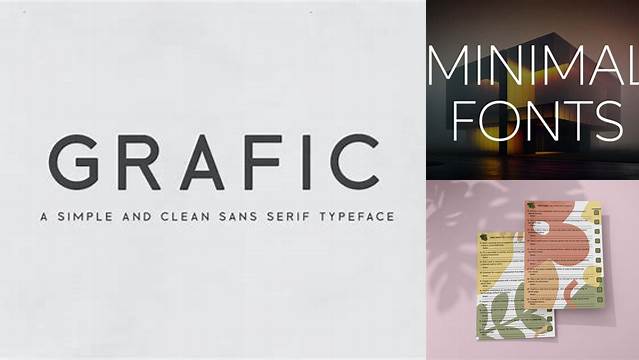
Top Clean And Simple Fonts For Modern Design
Are you on the hunt for the best clean simple fonts? Let's be honest, choosing the right font can feel like navigating a maze. It's more than just picking something that looks pretty; it's about conveying your message clearly, making your content readable, and giving your brand a unique voice. Think of fonts as the silent narrators of your design, silently shaping how your audience perceives your message. So, whether you're a seasoned designer or just starting out, understanding the world of clean, simple fonts is a must. In this article, we're diving deep into some of the top contenders, exploring why they work, and how you can use them to elevate your designs. We will uncover the essence of these best clean simple fonts and their importance in the modern design landscape. We'll cover some popular and well-regarded choices, but also some interesting and lesser-known options. Ultimately, you'll gain the knowledge you need to select the ideal fonts for your next project, so let's get started!
Why Clean and Simple Fonts Matter
Alright, guys, let's talk about why clean and simple fonts are so darn important. In a world overflowing with visual information, clarity is king. Clean fonts, also known as sans-serif fonts, are those that don't have the little decorative strokes (serifs) at the end of their characters. This simplicity is what makes them incredibly versatile and easy to read, especially on screens. Think about it: You're scrolling through your phone, and you want to quickly grasp the information. A cluttered font will make your eyes glaze over, but a clean one? It's like a breath of fresh air. They're particularly well-suited for body text in websites and apps, because they are designed for maximum readability. However, they are also a smart choice for a wide array of applications, including logos, headings, and even print materials. Beyond readability, these fonts have an inherent sense of modern elegance. They can communicate a sense of trustworthiness, minimalism, and sophistication. It's all about making your content accessible and professional-looking. Clean fonts are often a favorite choice in modern design, where the trend towards simplicity and user-friendliness is so strong. From a brand perspective, clean fonts help you build a consistent brand image. By selecting a font that aligns with your brand's values, you can help create a cohesive brand identity. Consistency in typography across your website, marketing materials, and other communications helps reinforce your brand identity. It is important that you choose fonts that do not just look good, but also support your brand's narrative.
Readability and User Experience
When it comes to the best clean simple fonts, readability is the name of the game, especially when you're creating content for the web. The goal is simple: make it easy for your audience to read and engage with your content. After all, the message of your website or marketing materials is pointless if people can't read it. Clean fonts, with their straightforward designs, are optimized for readability. They are designed to be easily distinguished, even at small sizes and on various screen resolutions. In web design, this is critical. Users don't have the patience to squint and struggle to decipher the text. They want information presented to them efficiently and with ease. By choosing a clean font, you are improving the user experience. Easy-to-read fonts are easier to absorb. This results in longer engagement times and, in turn, a stronger impact of your message.
Remember that different fonts evoke different feelings. For example, a font that’s too ornate or complex can feel overwhelming. On the other hand, a clean, simple font conveys a sense of order, professionalism, and approachability. This makes it ideal for websites, mobile apps, and digital documents. Another important aspect of readability is contrast. You must ensure there is enough contrast between the font and the background. Dark text on a light background is usually the easiest to read, but the choice of font matters, as well. In summary, choosing the best clean simple fonts is not just about aesthetics, it is about putting your audience first. By prioritizing readability, you're investing in a better user experience. This ultimately strengthens your communication and achieves your design objectives.
Versatility in Design Applications
One of the coolest things about these best clean simple fonts is their versatility. They can be used in a lot of different ways. Whether you're designing a website, creating a logo, or putting together a print ad, the adaptability of clean fonts makes them a great choice. They are like the Swiss Army knives of typography. In web design, these fonts are perfect for everything from the body of the text to headings and navigation menus. They look great on screens, making them ideal for websites, apps, and digital interfaces. Their readability at various sizes also makes them very useful for responsive designs, where the content must adapt to the device’s screen size. In branding, a clean font can be the foundation of a brand's identity. It can be used in logos, business cards, and marketing materials. These fonts provide a sense of consistency and cohesion across all brand communications. Their neutral aesthetic makes them suitable for various types of brands, from tech companies to lifestyle brands. They are also ideal for creating a modern, professional, and trustworthy image.
Beyond digital applications, these fonts work well in print. Books, magazines, brochures, and posters all benefit from these fonts. They're readable and make the text look clean and organized. The ability to combine these fonts with different design elements is key. They can be paired with images, colors, and other visual elements to produce a design that is both informative and visually appealing. Whether you're working on a large-scale project or a small-scale one, the adaptability of a clean font will help you to achieve your creative vision. In the end, their versatility guarantees that they remain a design staple, helping designers create appealing and useful designs across different platforms and media.
Top Clean and Simple Fonts You Should Know
Now that you know why clean and simple fonts rock, let's dive into some of the best ones out there. These fonts are popular for a reason. They are reliable, versatile, and guaranteed to make your designs look good. We'll cover a few of the top choices, but there are many others for you to discover. So, let's explore some fonts that you can use in your projects!
1. Open Sans
Open Sans is a favorite among designers. It’s a humanist sans-serif font that was designed by Steve Matteson. It's used on everything from websites to apps. Open Sans is known for its excellent readability, even at small sizes. Its open, friendly character is a great choice for a wide variety of applications. The font is very adaptable. It is ideal for body text. This is because it is designed with clarity in mind. It is also a fantastic choice for headlines, subheadings, and user interface elements.
Beyond its readability, Open Sans has a clean, modern look. This neutral aesthetic makes it ideal for a lot of different designs. Another benefit is that it is an open-source font. This means it's free to use for both personal and commercial projects. This accessibility makes it an amazing choice for projects of all sizes. Open Sans is available in a range of weights, from light to bold. This allows you to add emphasis to your text. When selecting best clean simple fonts, Open Sans should always be on your list. It offers an amazing balance of readability, adaptability, and accessibility, making it a strong choice for any design project.
2. Roboto
Roboto, designed by Google, is the official font of the Android operating system. It’s a geometric sans-serif font. It has a modern and friendly feel. Its strong readability and versatility make it a popular choice for many designers. Roboto has a clean, modern aesthetic. It is a great choice for all types of interfaces. This font is designed for screen use, so it looks great on websites, apps, and other digital platforms. It has an amazing balance of readability, legibility, and style.
Roboto offers a wide range of weights and styles, offering designers a lot of choices. This allows for fine-tuning the visual hierarchy of your design. From light to bold, it allows you to emphasize important elements of your content. It’s also very versatile, working well in different contexts. You can use it for body text, headings, and interface elements. The adaptability of Roboto makes it suitable for many projects. Roboto is also known for its good performance across a wide range of devices and screen sizes. This font makes it ideal for responsive design. Given its versatility, excellent readability, and modern appearance, Roboto is a top choice in the realm of clean and simple fonts.
3. Montserrat
Montserrat is a sans-serif font. This font was designed by Julieta Ulanovsky, and it was inspired by the urban typography of the Montserrat neighborhood in Buenos Aires. It is known for its clean and modern appearance. It is a great choice for a lot of design projects. The font has a geometric design. It is ideal for both headlines and body text. Its high level of readability makes it a good fit for digital and print applications.
One of the key features of Montserrat is its adaptability. It works well in a variety of design contexts, including websites, logos, and marketing materials. Its clean and modern look makes it ideal for modern branding. Montserrat also offers many weights and styles, which gives designers a lot of control. From thin and light to bold and extra-bold, these different weights allow designers to create visual interest and emphasize text. Its extensive character set includes numbers, symbols, and international characters. This is an important feature for multilingual projects. Montserrat is a favorite for its readability, modern appearance, and extensive features. It is a versatile choice for a lot of design projects.
4. Lato
Lato is a sans-serif font. It was designed by Łukasz Dziedzic. The font is well known for its friendly and approachable feel. It's a great option for a wide range of design projects. The font has a balanced structure, and this makes it easy to read, which means it's useful for all types of text.
Lato has a clean, modern aesthetic. This gives it a versatile character. Its neutral appearance makes it a great choice for websites, apps, and print materials. Its versatility makes it an excellent option for different design applications. You can use it for everything from body text to headings. Lato also offers different weights and styles. This gives designers creative control when they're designing. The range of weights allows you to create visual interest and highlight the most important elements of your design.
5. Source Sans Pro
Source Sans Pro is a sans-serif font. This font was designed by Paul D. Hunt for Adobe. It’s a popular choice for its clean design and excellent readability. Source Sans Pro was designed to work well on a wide variety of devices and screen sizes. This font is optimized for digital use, making it an ideal choice for websites, applications, and user interfaces.
Source Sans Pro’s design features a neutral, modern aesthetic. This makes it a versatile font. It is suitable for everything from body text to headings. Its professional appearance makes it a great choice for branding. The font has a wide range of weights and styles, allowing designers to have complete control over their designs. The variety of weights also allows for fine-tuning your visual hierarchy. When considering best clean simple fonts, Source Sans Pro is a great option.
How to Choose the Right Clean Font
Alright, so how do you choose the perfect clean font for your project? It’s not a one-size-fits-all situation, guys. There are a few things to consider to make sure you choose the right one. Let's break it down.
Consider the Project's Purpose and Audience
First, think about the purpose of your project and who you're trying to reach. What is the message you're trying to convey? Is it formal and professional, or more casual and friendly? Your font should support this. Think about your target audience. Are you trying to appeal to a tech-savvy audience, a creative audience, or something else? The font you select should reflect the values and preferences of your audience. For example, a bold and modern font might work well for a tech company, but a more classic font might be better suited for a law firm. Always take into account the needs of the audience. The goal is to choose a font that resonates with your audience. This ensures that they are more inclined to connect with your content.
Evaluate Readability and Legibility
Readability and legibility are super important. Readability is how easy it is to read a large amount of text. Legibility is how easily you can distinguish individual letters. Choose a font that’s readable in both body text and headlines. Test it at different sizes and on different devices. A font might look great in large headings, but if it becomes unreadable at smaller sizes, it’s not a good choice for body text. You should also consider the font’s spacing and letterforms. Well-spaced letters and clear letterforms are key to readability. Be sure that the font is legible on the platform where you’ll be using it, whether it’s a website, app, or print material.
Consider the Design Context and Brand Identity
Think about where you'll use the font. Will it be used on a website, in a printed brochure, or on social media? Each of these situations has specific requirements. If you're designing for a website, make sure the font is web-safe and loads fast. If you are creating a brand identity, your font choices should support your brand's image and personality. The font should fit with your logo, color scheme, and overall aesthetic. Consistency across all your branding materials is key to establishing a strong brand presence. Make sure your font choices are consistent. This strengthens your brand recognition and reinforces the message you're trying to convey. Also, remember that you don't need to stick to one font. You can use different fonts for different purposes. Just make sure that the fonts complement each other, creating a harmonious design. It is important that you select the best clean simple fonts to ensure consistency.
Choosing the best clean simple fonts is a game-changer when it comes to creating designs that are both beautiful and effective. These fonts are more than just a visual choice. They are an amazing instrument for communication and branding. Remember that selecting the right font involves knowing your project, understanding your audience, and prioritizing clarity. By following the guidelines in this article, you'll be well on your way to making informed choices. So, go out there and experiment with these fonts. See how they transform your designs! With a little practice, you'll be a font expert in no time. Happy designing, guys!